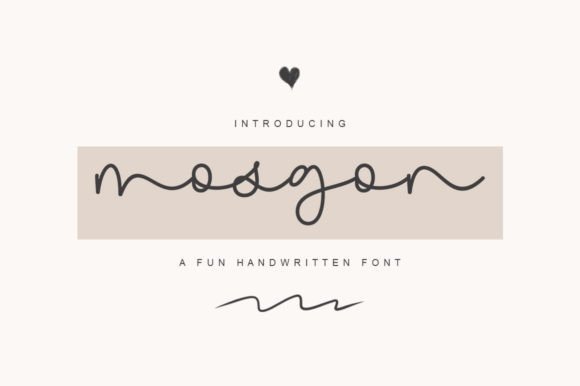
Step into a world of enchantment with Mosgon, a script font crafted with elegance and charm. Inspired by the timeless beauty of handwritten letters, Mosgon embodies a tender, flowing style that adds a touch of magic to your designs. Created by the renowned Kama Studio, Mosgon is a font of unparalleled artistry, designed to capture the essence of romance and evoke a sense of wonder.
With its delicate curves and sweeping strokes, Mosgon is an ideal choice for wedding invitations, adding a touch of sophistication and elegance to your special day. Envision your wedding vows, etched in Mosgon's graceful script, becoming a cherished keepsake that reflects the love and joy of your union. Each letter dances across the page, telling a tale of devotion and everlasting love.
Mosgon's versatility extends beyond invitations, making it a treasure for any creative endeavor. From stunning social media posts to captivating quotes and business cards, Mosgon elevates your designs with its innate charm. Whether you're a blogger, entrepreneur, or simply a wordsmith passionate about expressing yourself, Mosgon is your artistic companion, transforming your words into works of art.
Unleash your creativity with Mosgon and discover a world of possibilities. Let your imagination soar as you craft movie covers that transport viewers to enchanting realms, or create branding materials that exude a sense of timeless elegance. Mosgon is the perfect font to add a touch of magic to your designs, leaving a lasting impression that captivates and delights.